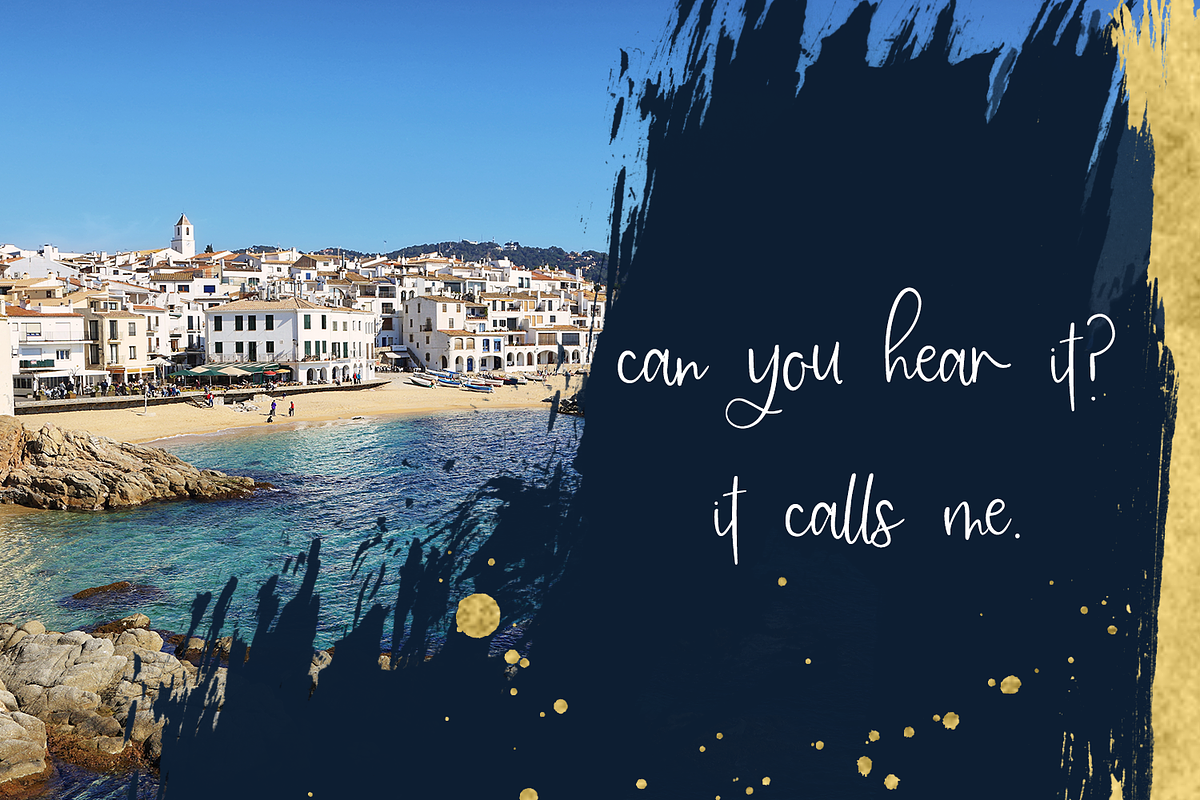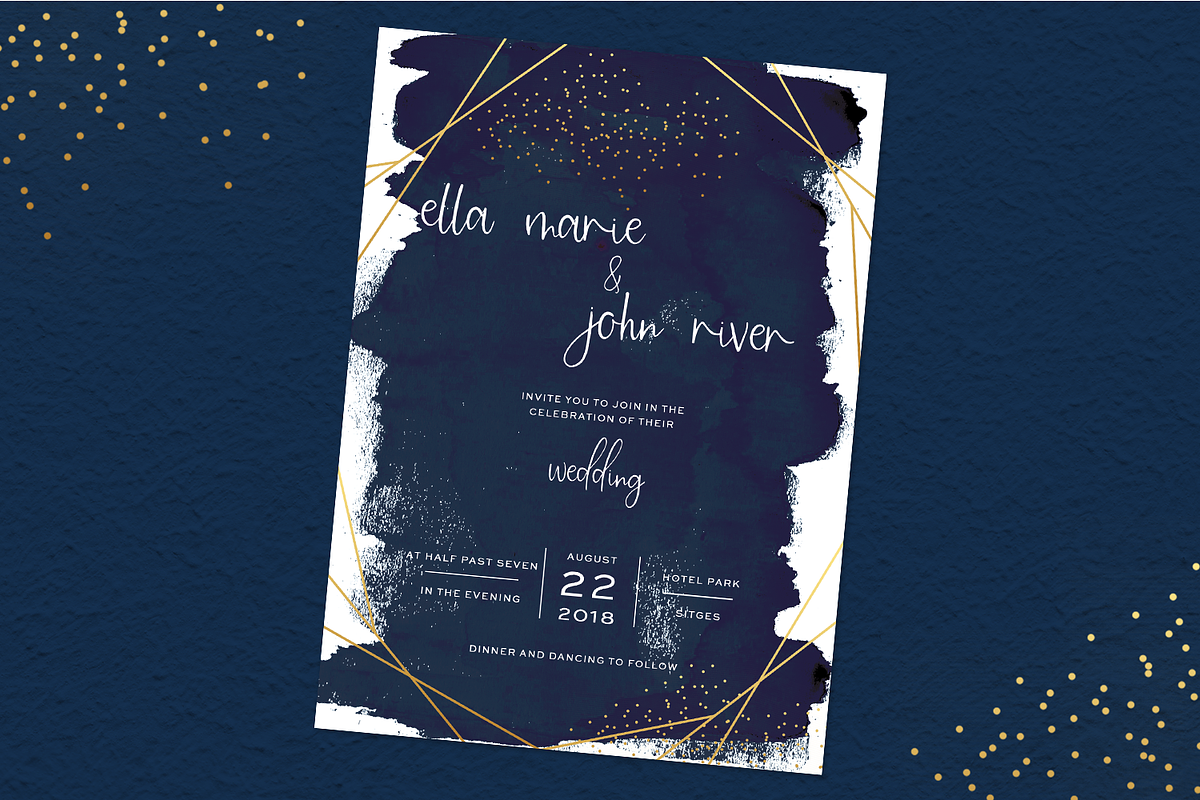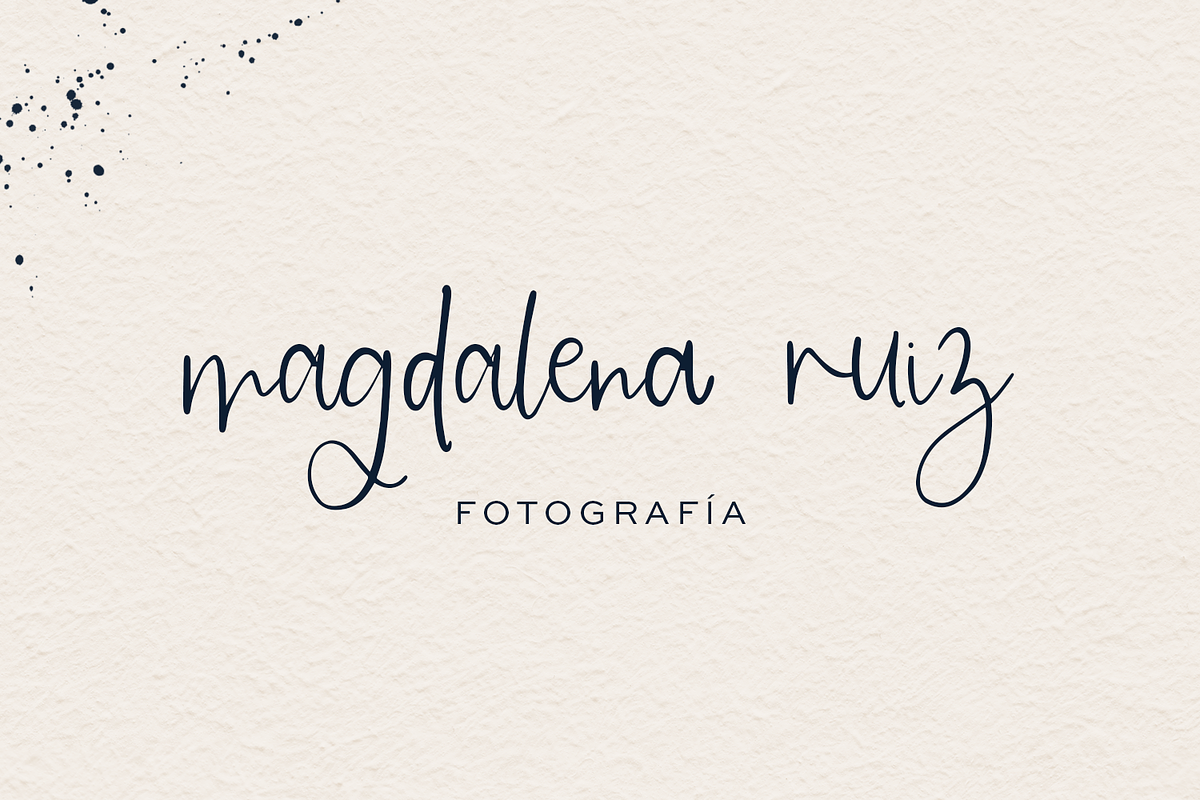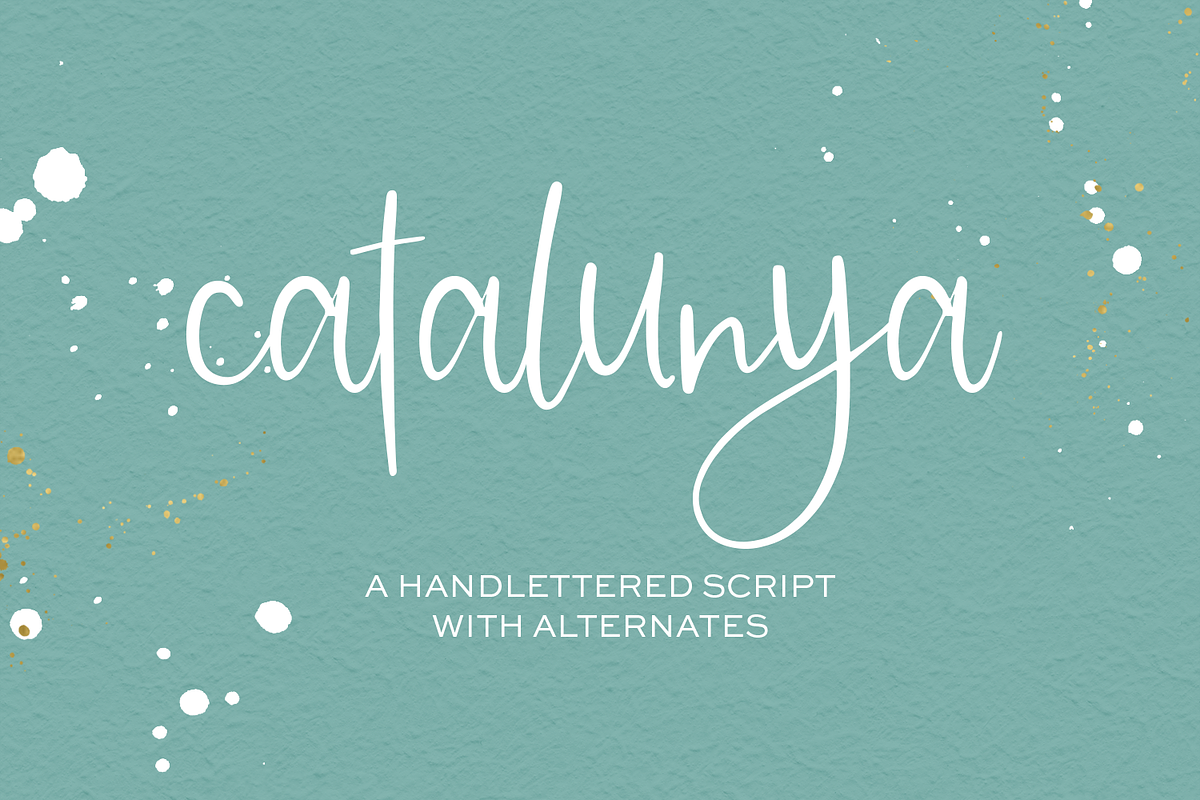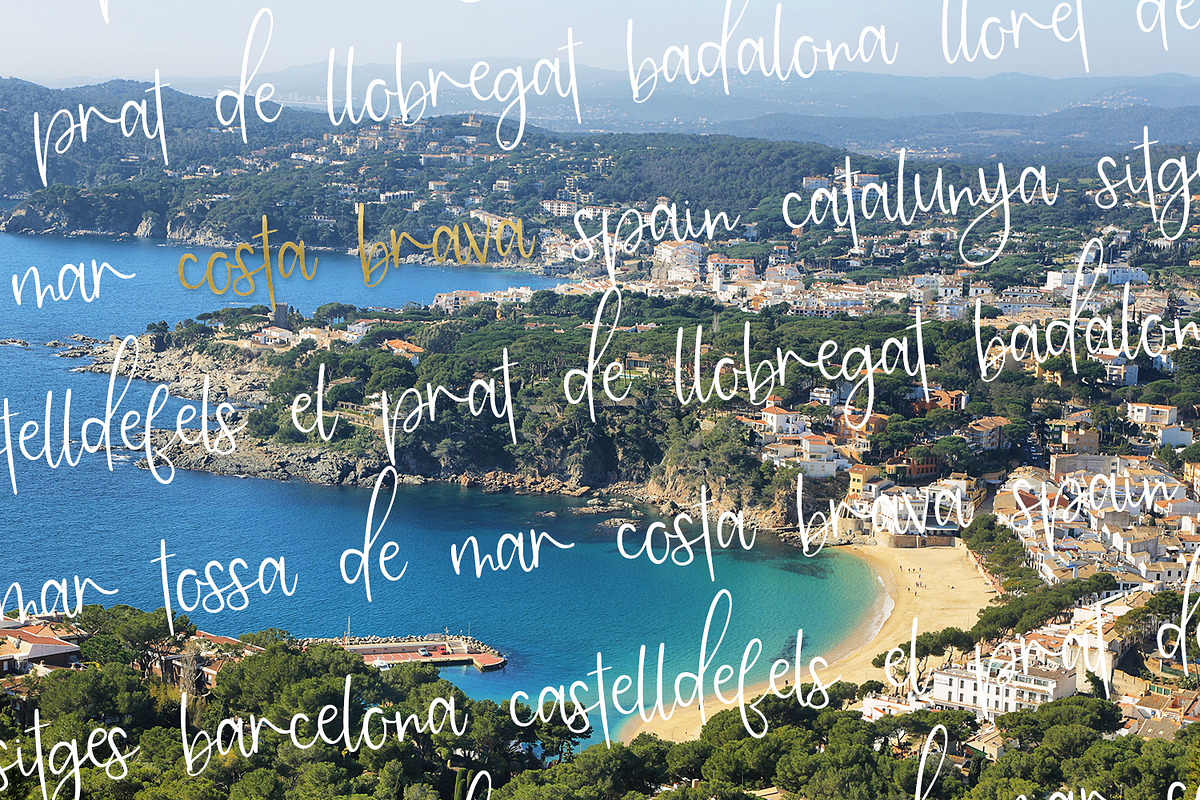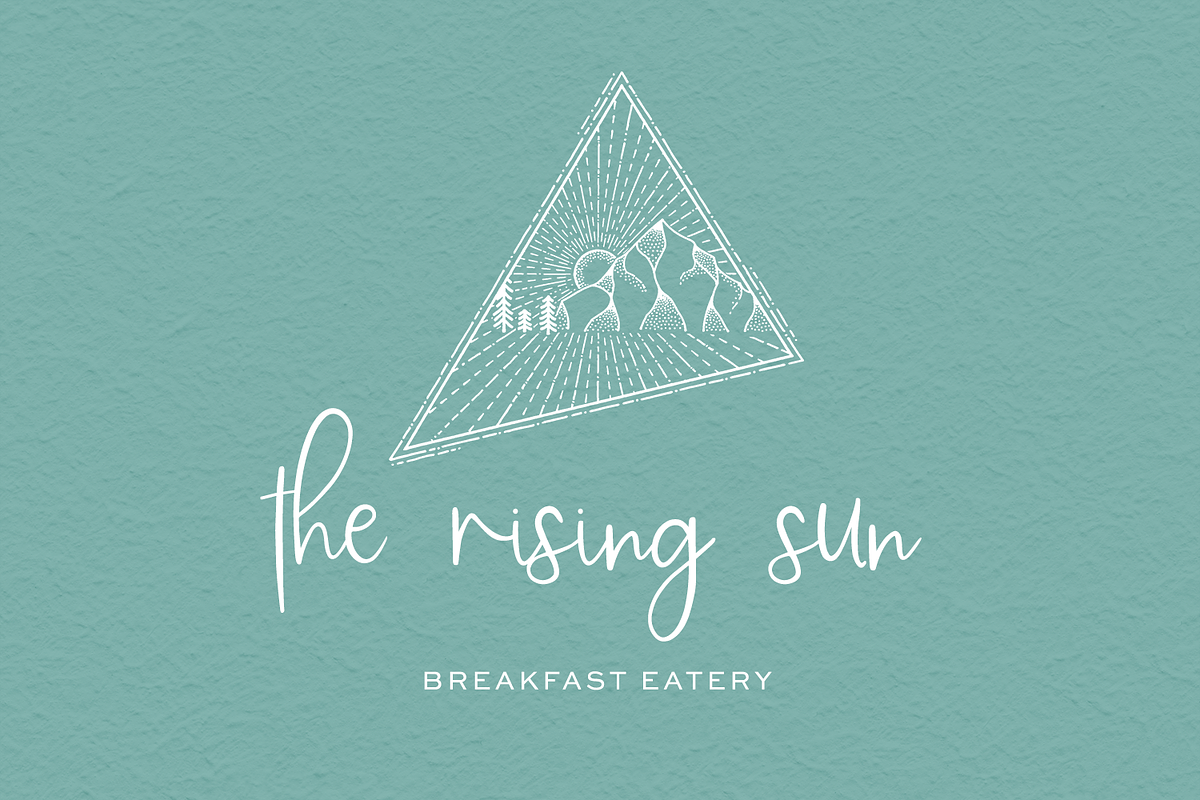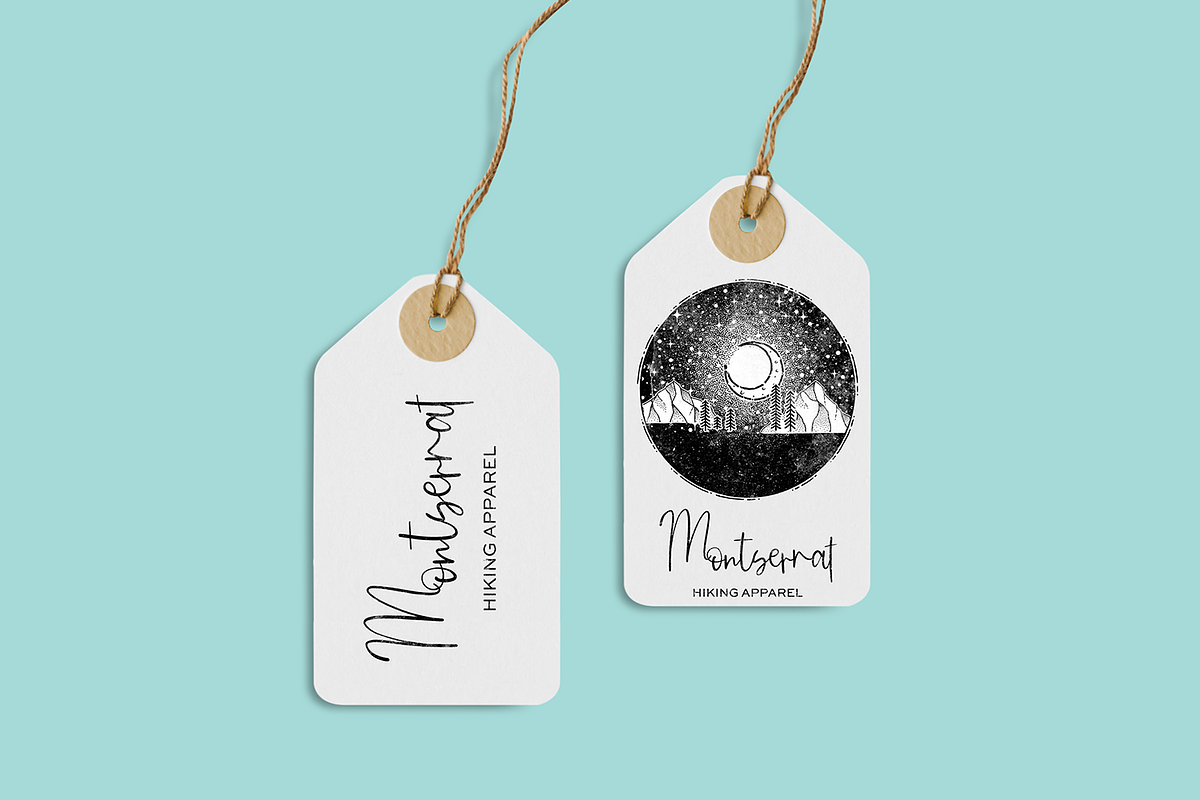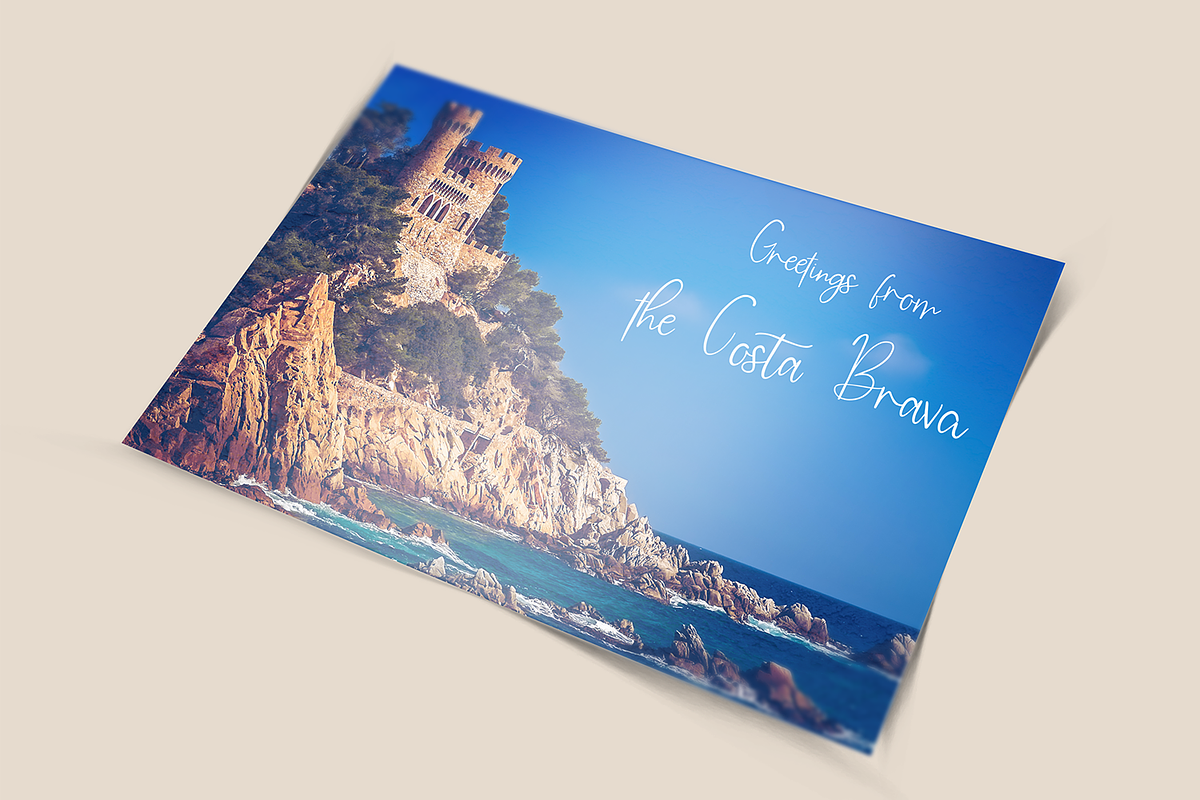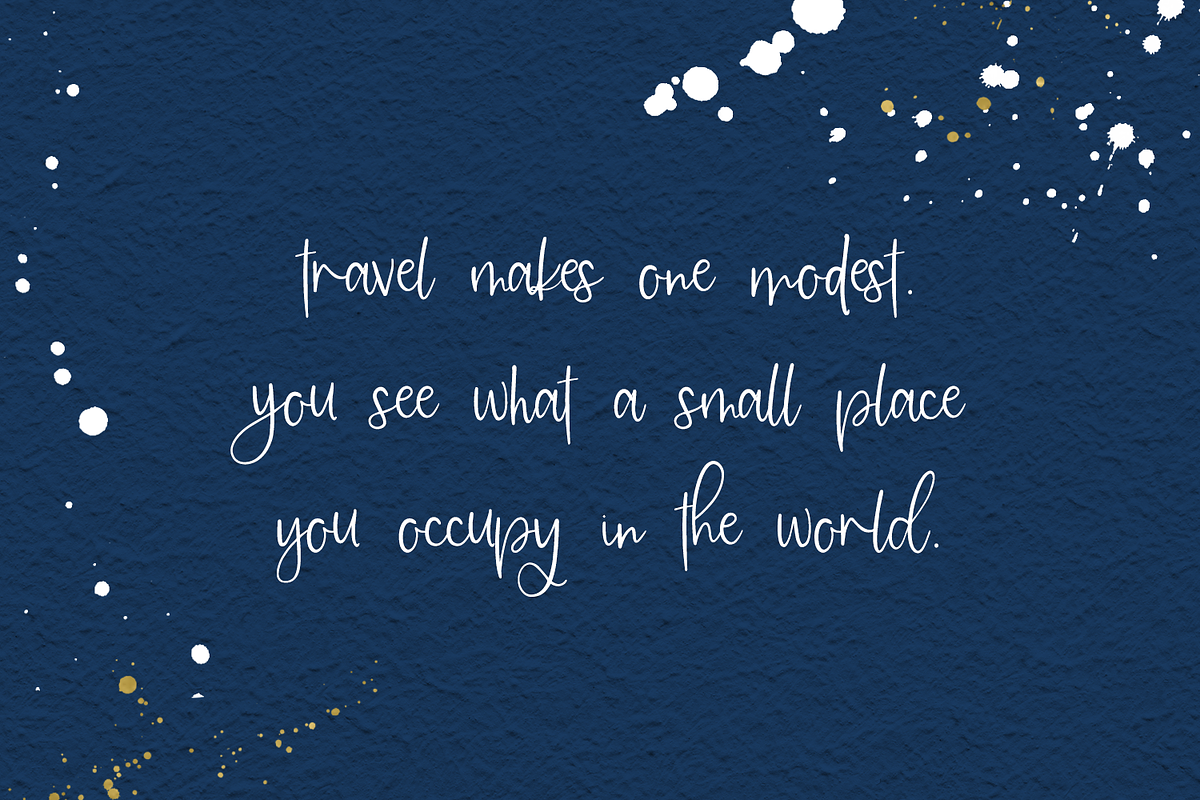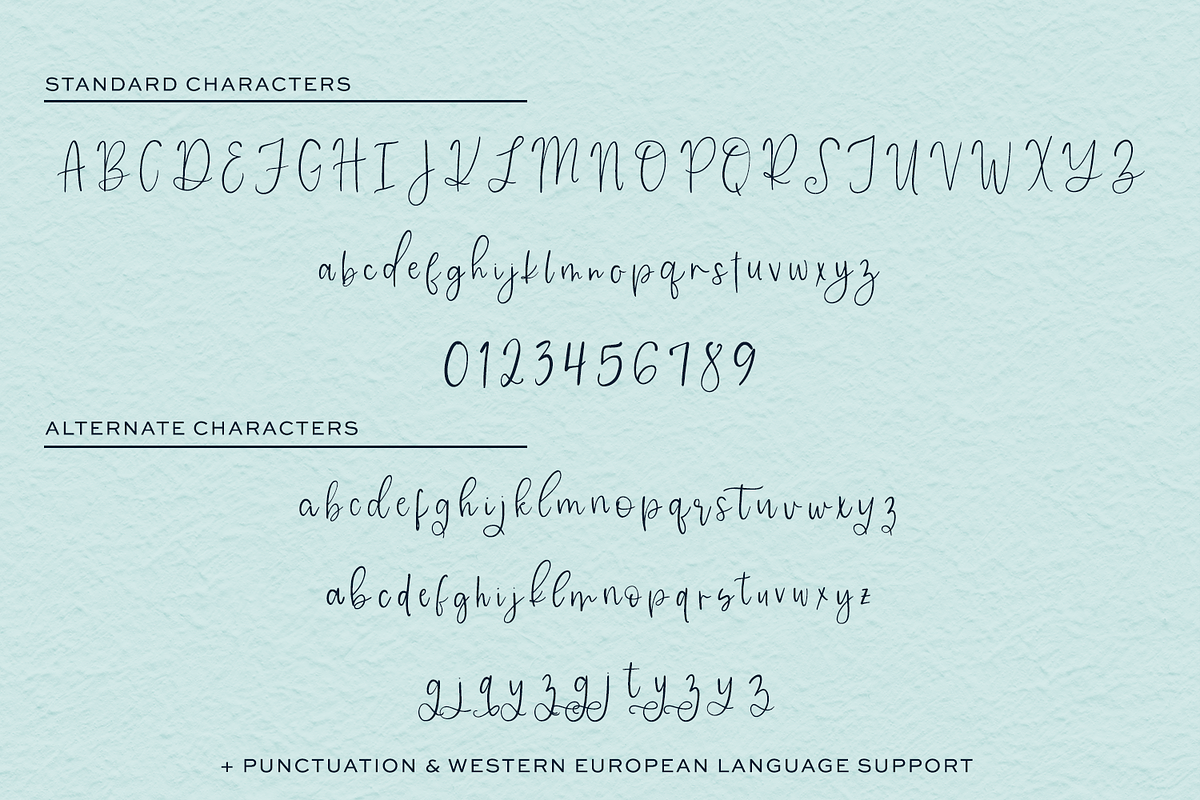
Catalunya Script
Introducing Catalunya Script, a hand lettered script with alternates. Catalunya has a casual, upbeat feel, with plenty of options. The alternates included in this script make it easy to customize the text in your project with a truly handwritten feel. Its clean lines also make it an excellent fit for crafting projects + vinyl cutting.
Catalunya Script is best for:
- clean print design, like magazines + flyers
- header elements that need a feminine touch
- logos + branding
- quote graphics for social media
- crafting projects requiring a casual script
Catalunya Script includes:
- full upper + lowercase characters
- numbers + punctuation
- Western European Language Support
- 64 lowercase alternate characters
- 3 additional ampersand options